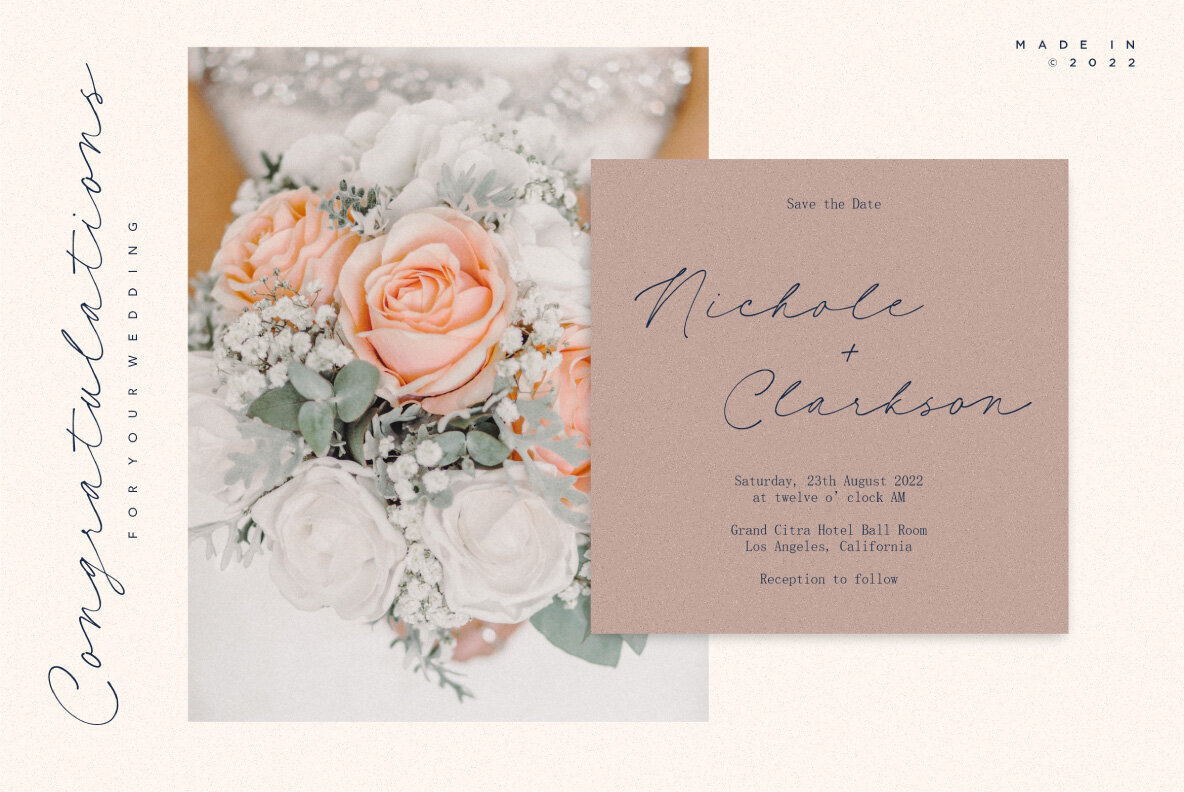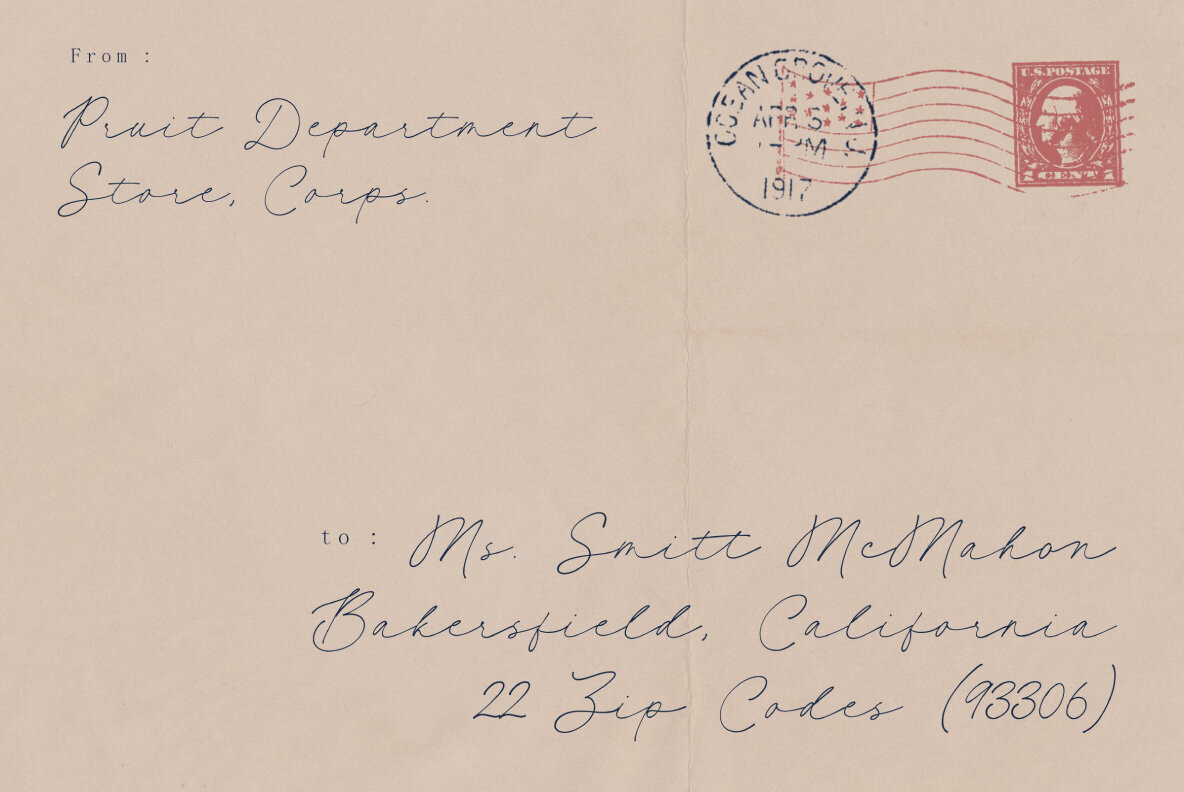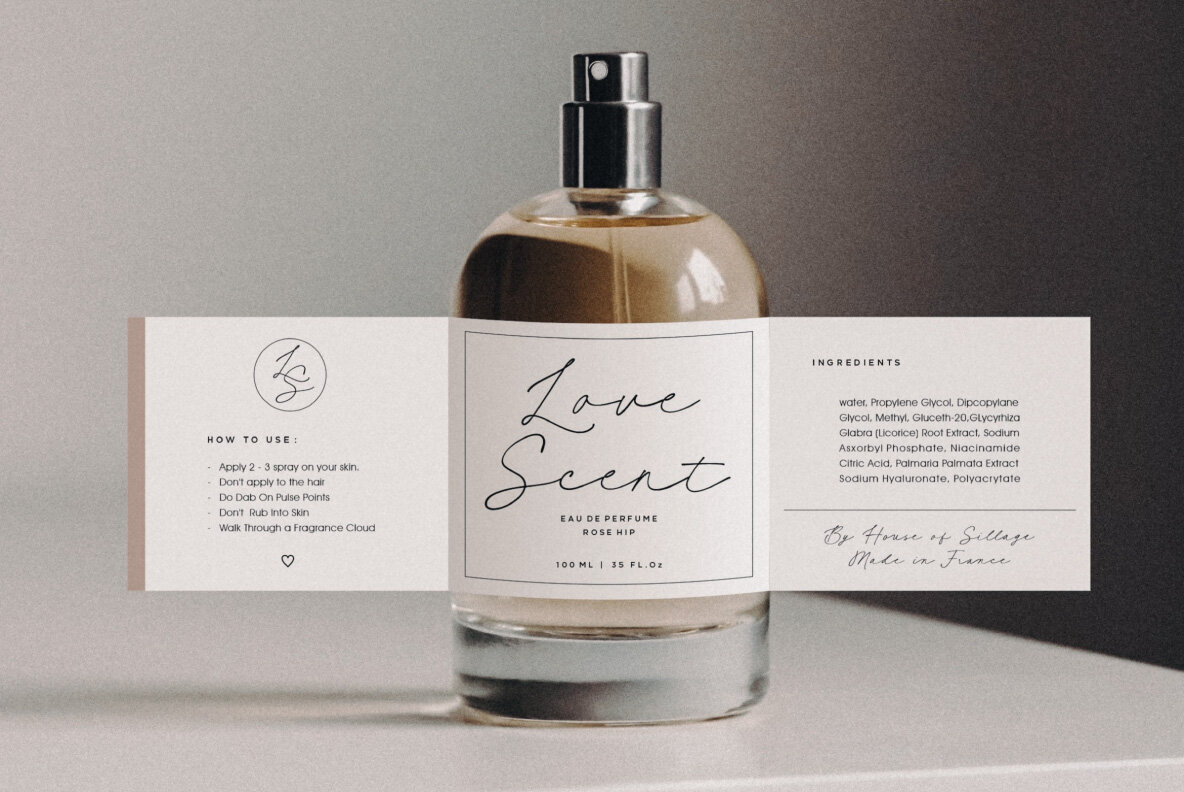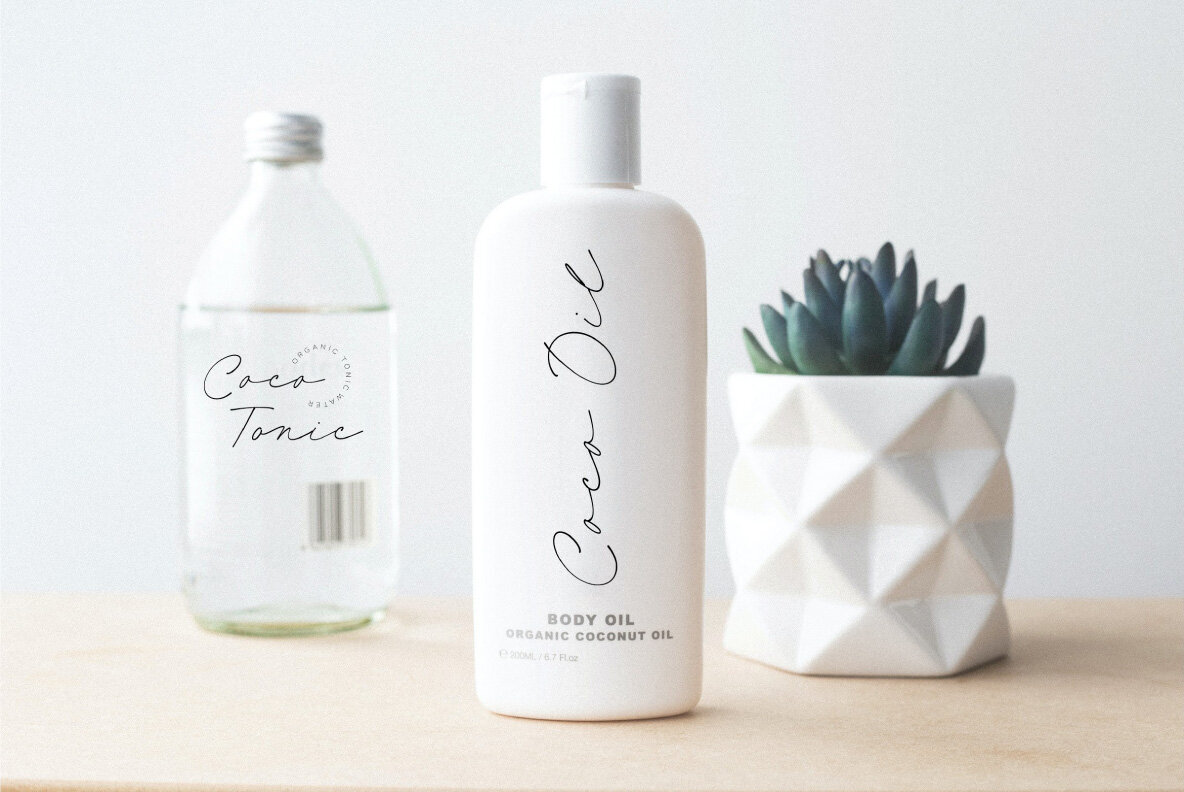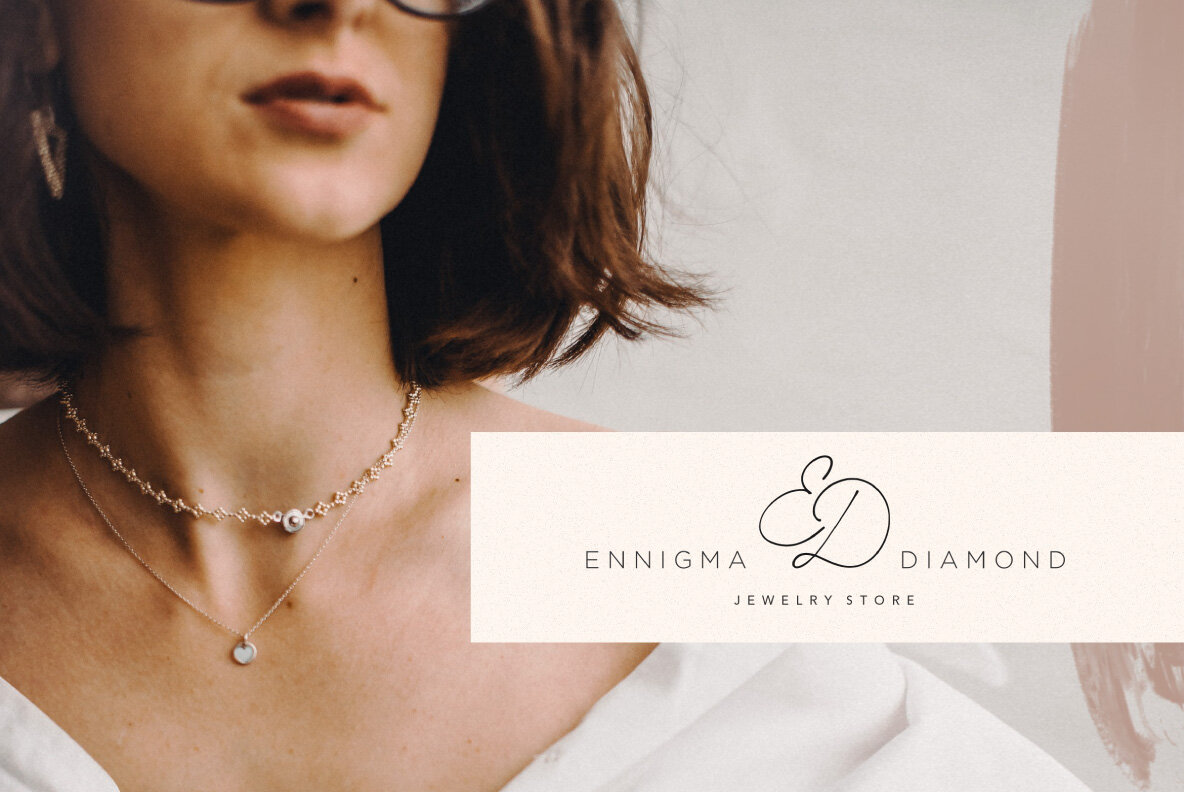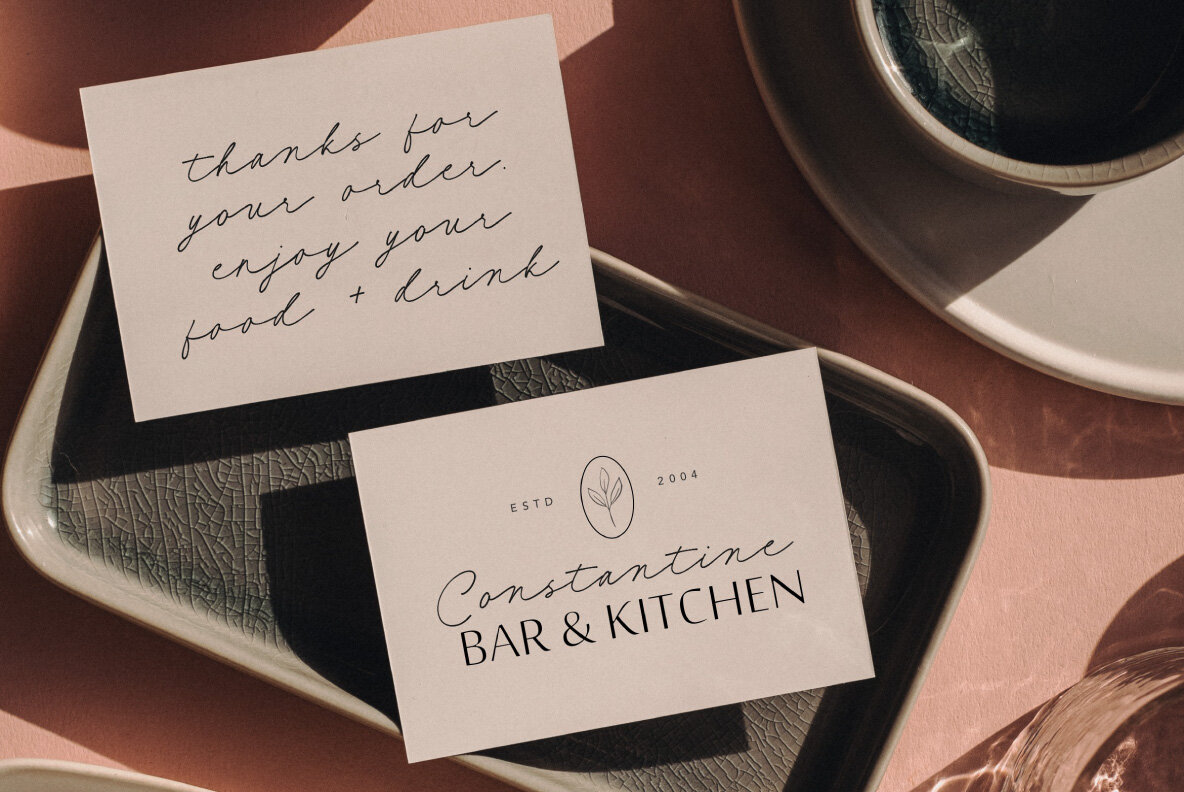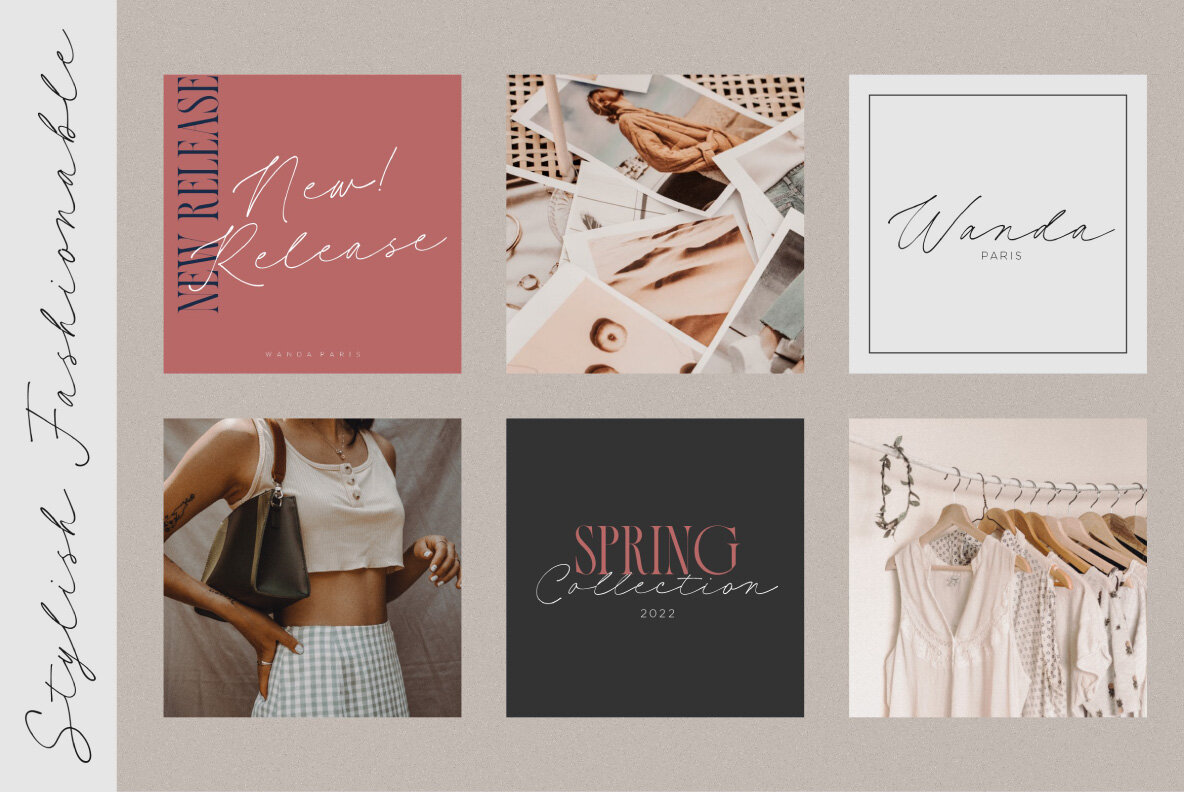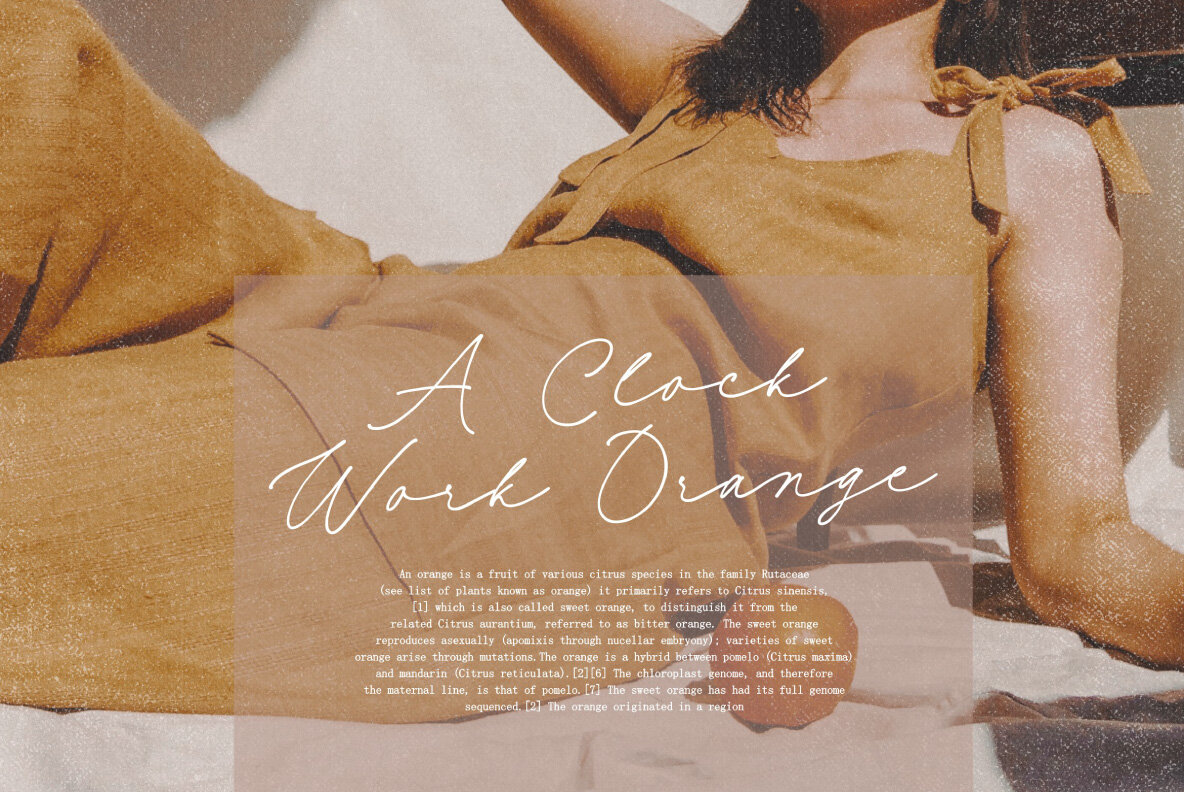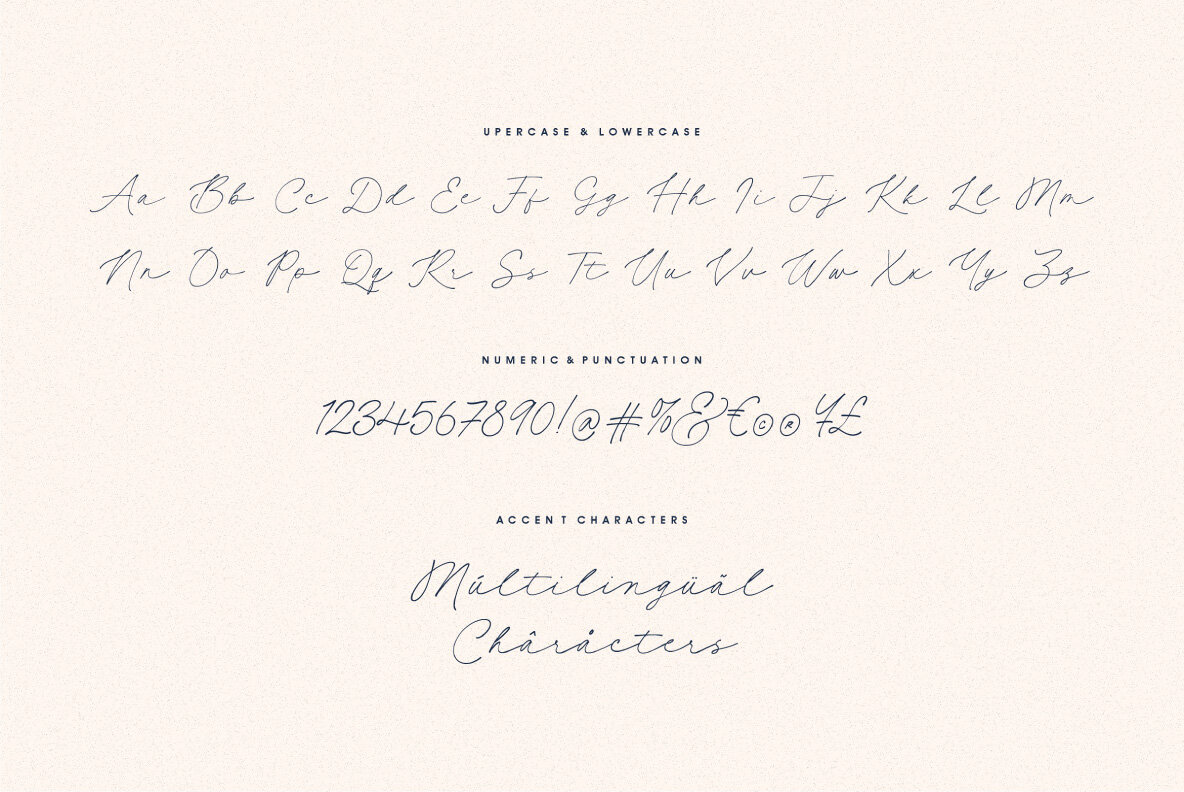
Hand of Linda is the perfect font to use for your next design project. With its chic and natural curves, it will add charm that can't be found anywhere else!
- Numeral & Punctuation.
- Ligatures.
- Multilingual Support.